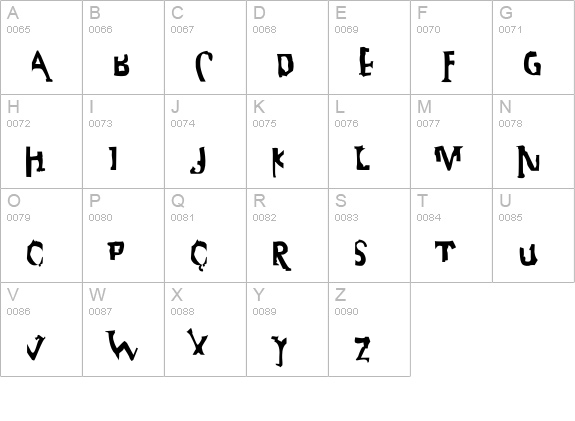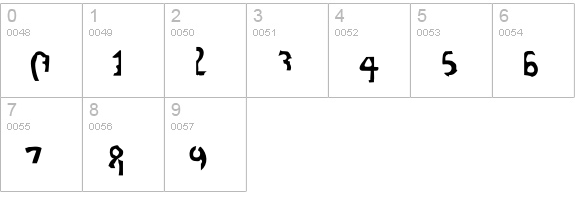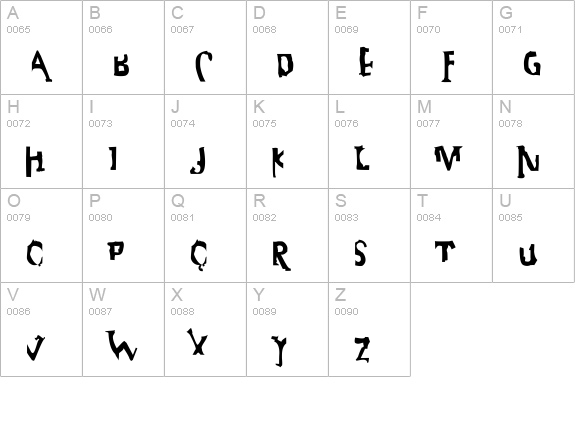
Motive-Bold is a strong, high-contrast variant in the Motive typeface family \xE2\x80\x94 well suited to headlines, attention-grabbing titles, and strong calls-to-action.
Introducing Motive-Bold, a versatile and modern font designed to make a bold statement in your projects. With its strong and eye-catching appearance, Motive-Bold is perfect for headlines, titles, logos, and more. This font exudes confidence and style, making it ideal for projects that demand attention. What makes Motive-Bold even more appealing is that it is completely free to download. Yes, you read that right - this high-quality font is available at no cost on FontsMarket.com. Now you can elevate your designs without breaking the bank. Don't miss out on the opportunity to enhance your creative work with this stunning typeface. Download Motive-Bold today and let your projects stand out from the crowd.